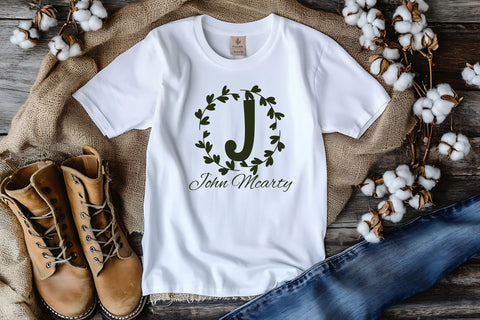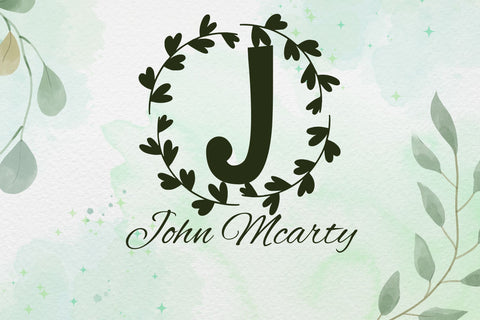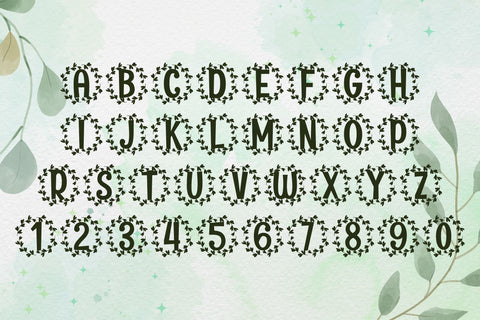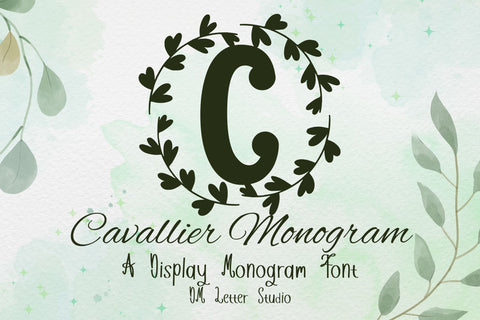
Cavallier Monogram – Classic Serif Monogram Font for Timeless Elegance
Cavallier Monogram is a classic serif monogram font designed to deliver timeless elegance and authority to your creative projects. With a focus on strong vertical weight, clean lines, and stately proportions, this monogram typeface brings a regal sophistication to logos, stationery, packaging, and personalized items. It’s the perfect choice when you want your designs to feel upscale, refined, and confidently bold.
Crafted to evoke a sense of tradition and professionalism, Cavallier Monogram features high-contrast strokes, balanced spacing, and dignified serif forms. The font is optimized for use in both print and digital formats—ideal for luxury branding, boutique logos, wedding invitations, custom gifts, engraving designs, and more. Its elegant capitals create striking standalone initials or pair beautifully for custom monograms with a polished finish.
Each character in Cavallier Monogram is thoughtfully drawn to maintain a harmonious, balanced look across letter pairs. The font comes with complete A–Z uppercase letters, numerals, punctuation, and multilingual accents, allowing for full international use and personalization. It works seamlessly in popular design platforms like Canva, Adobe Illustrator, Photoshop, Procreate, CorelDRAW, and compatible cutting machines like Cricut and Silhouette.
Whether you're a designer, brand strategist, event planner, or small business owner, Cavallier Monogram will elevate your work with its refined appearance and versatile performance. The bold serif style ensures strong legibility even at small sizes, while the classic aesthetic makes it suitable for both modern minimalism and vintage-inspired layouts.
Classic Serif Letterforms: Timeless and elegant, perfect for upscale monograms.
Versatile Use: Ideal for logos, branding, gift packaging, and personal stationery.
Multilingual Support: Includes accents, numerals, and full punctuation.